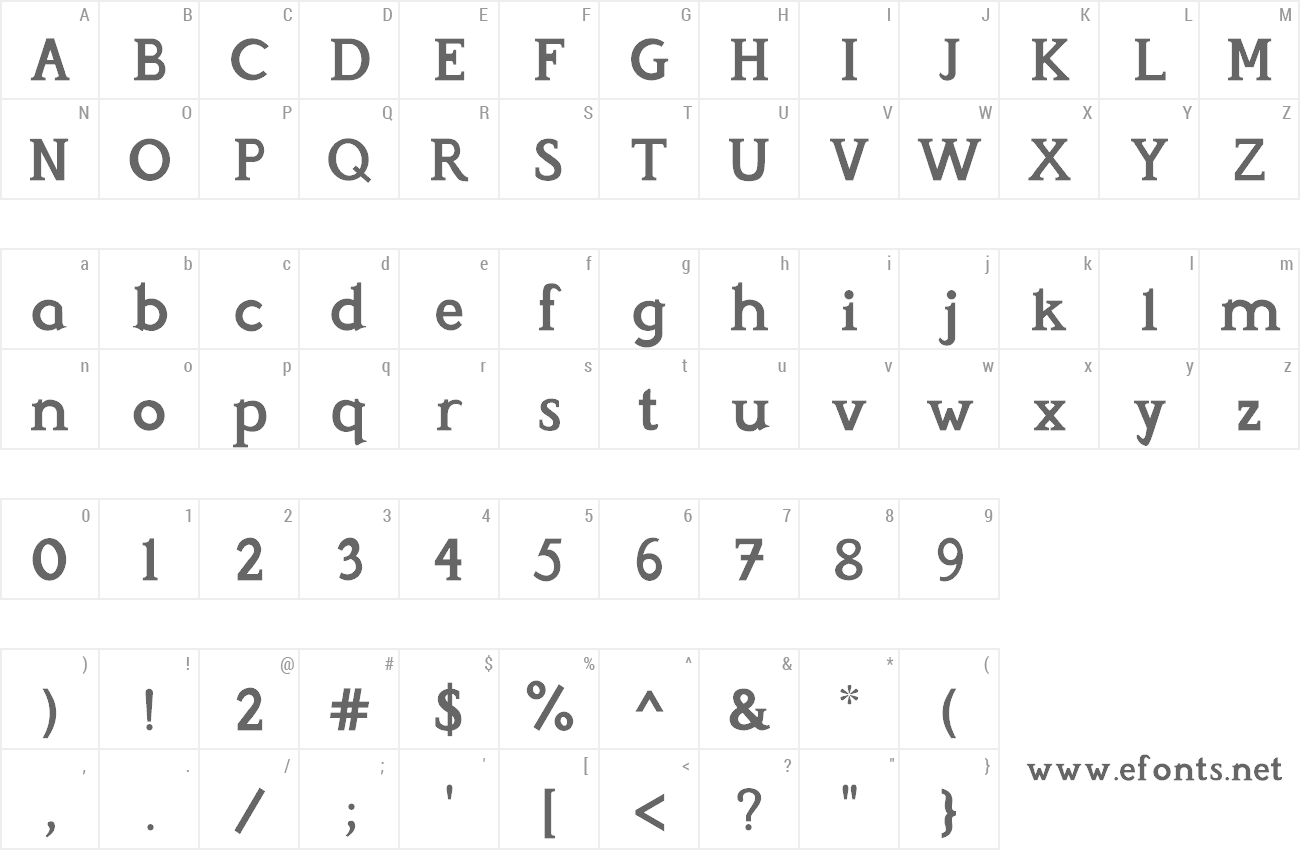
| Font name: | Perspicacious |
| Author: | Sharvanna Kenny |
| Note by Sharvanna Kenny | |
| Perspicacious is a serif typeface designed as a final graphic design project. It has been designed to be as readable as possible. |